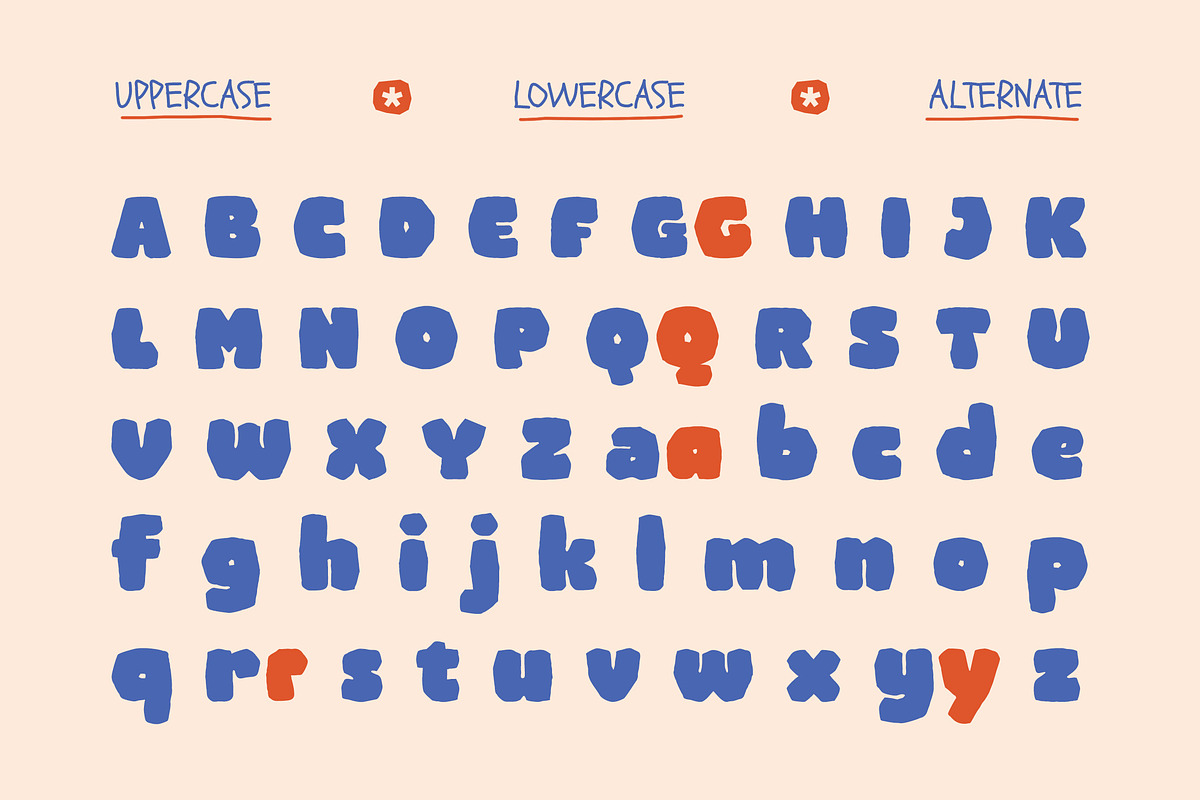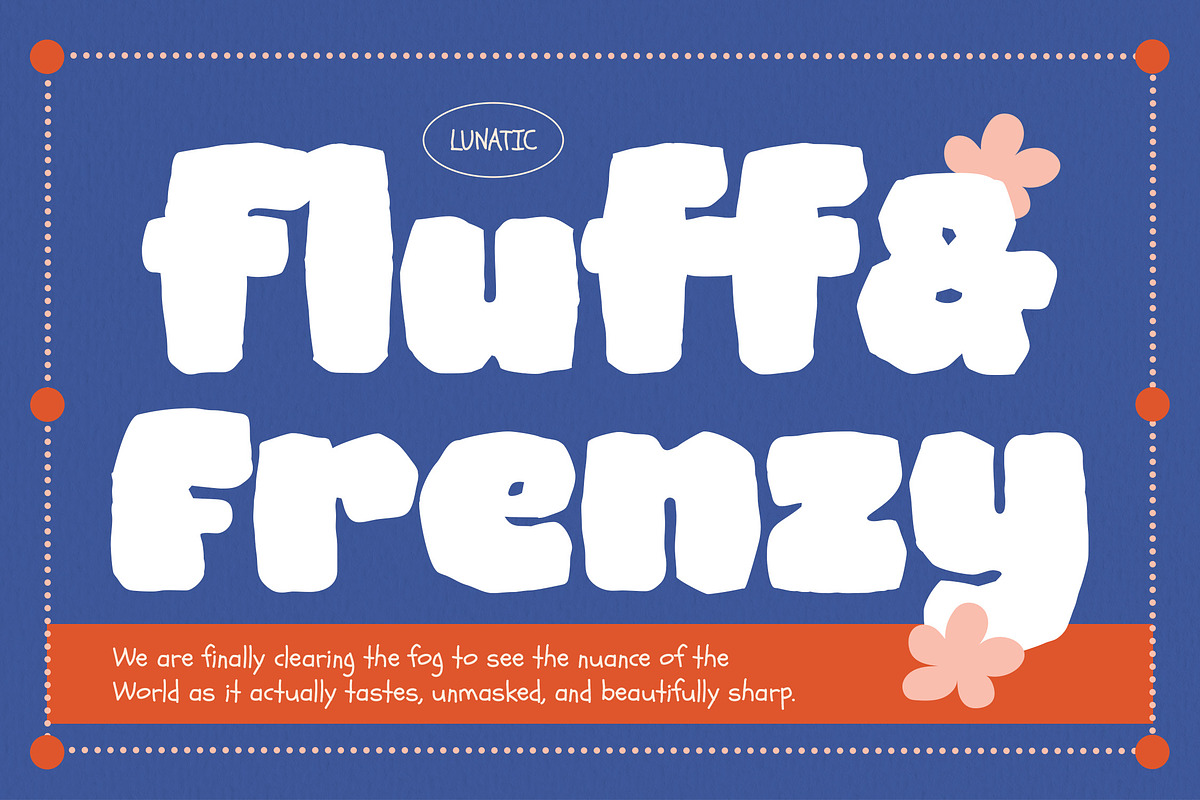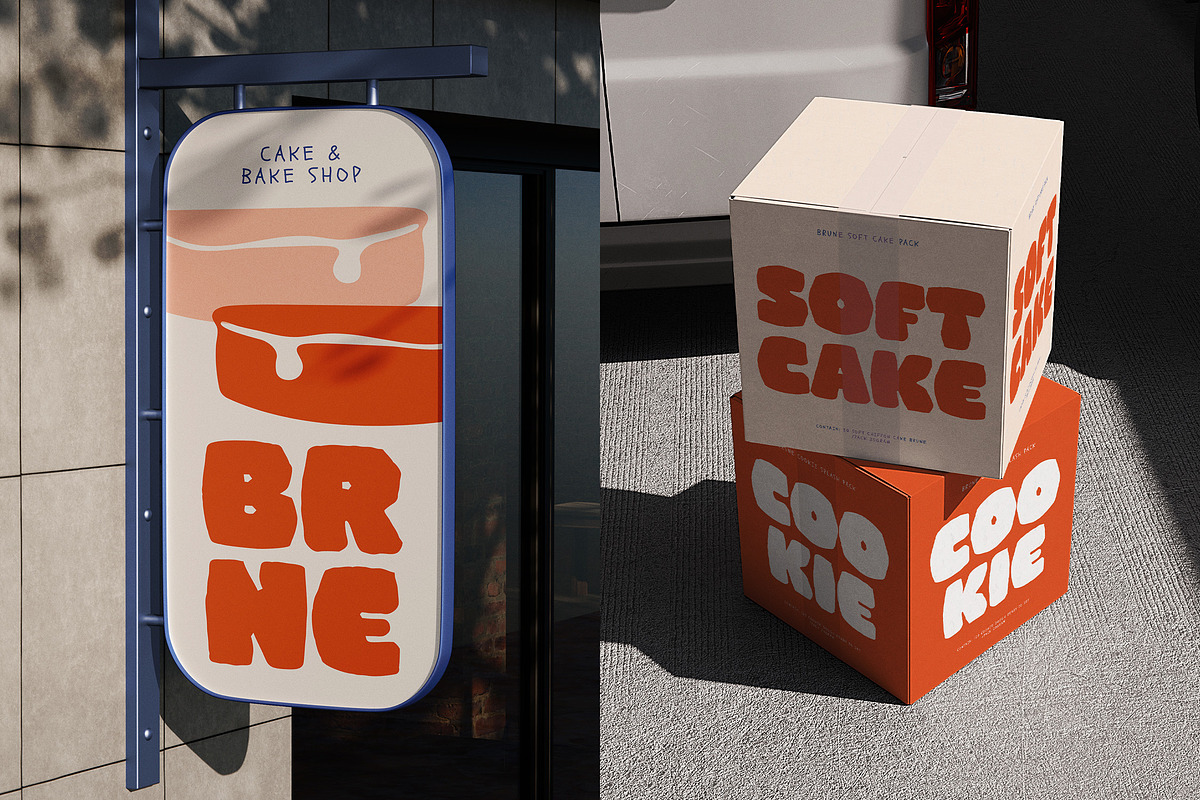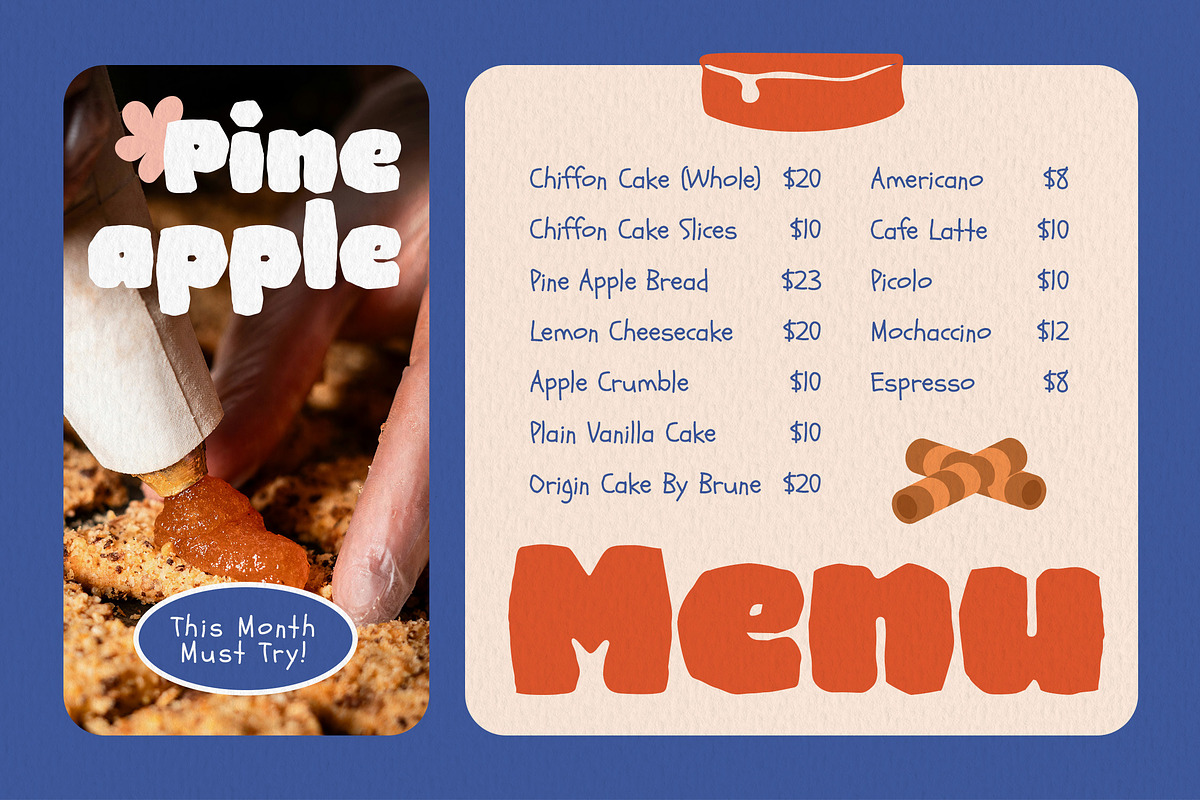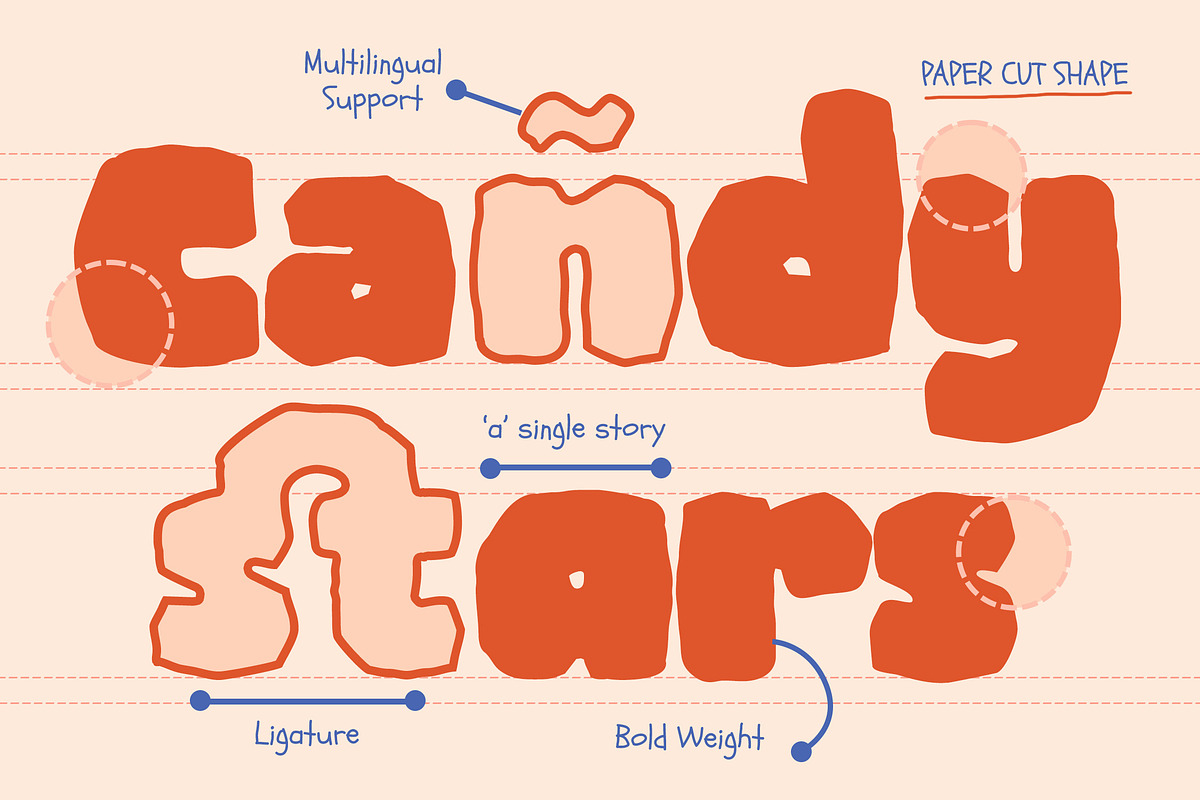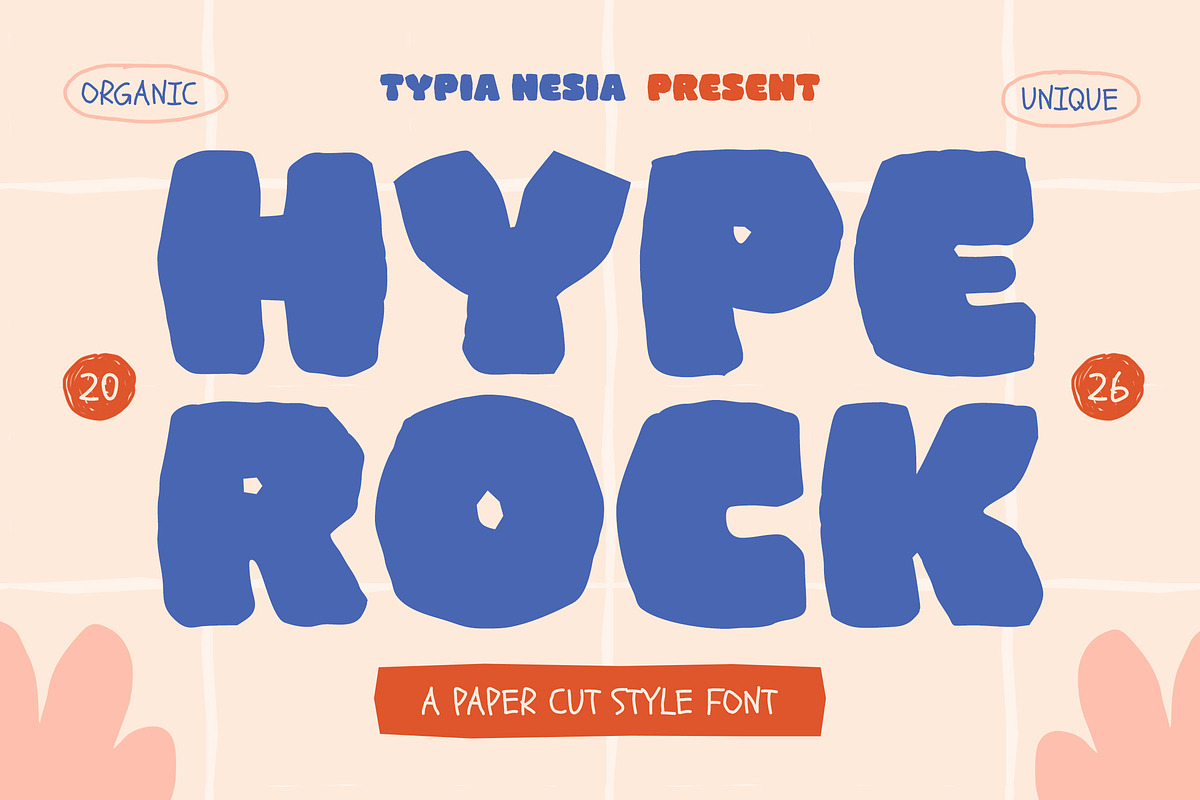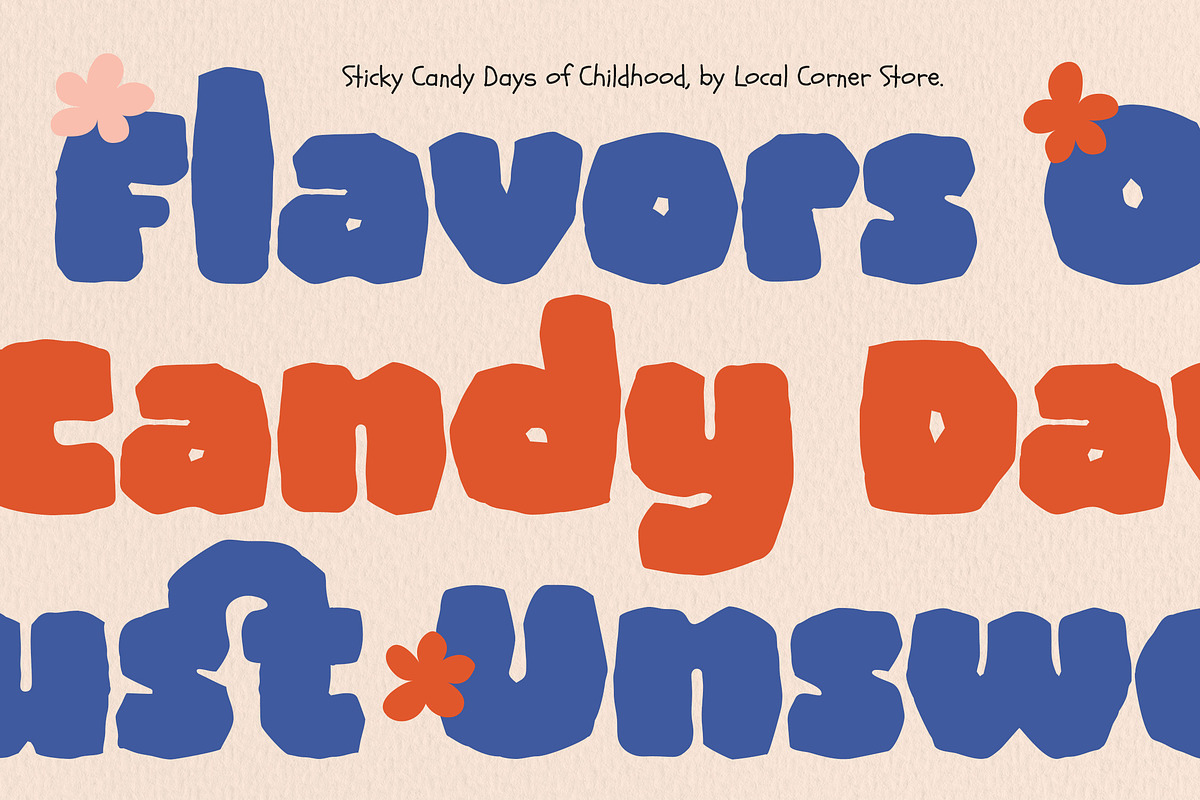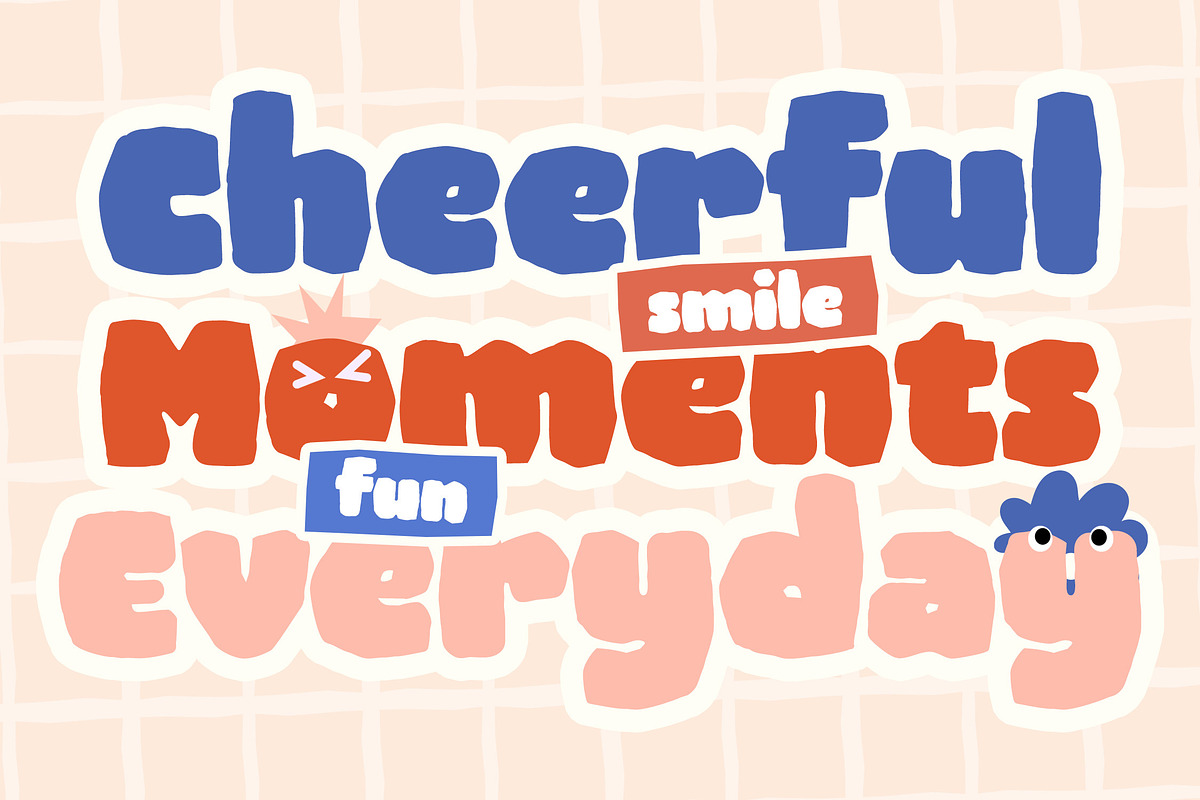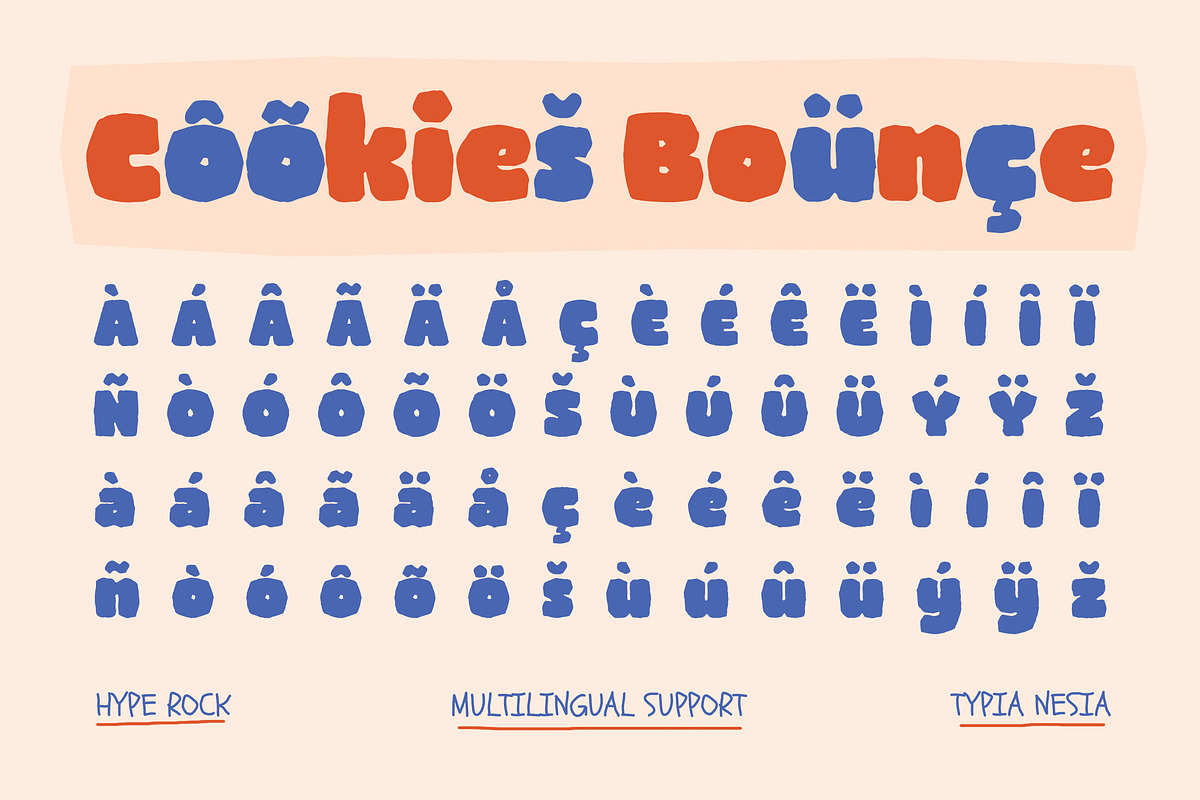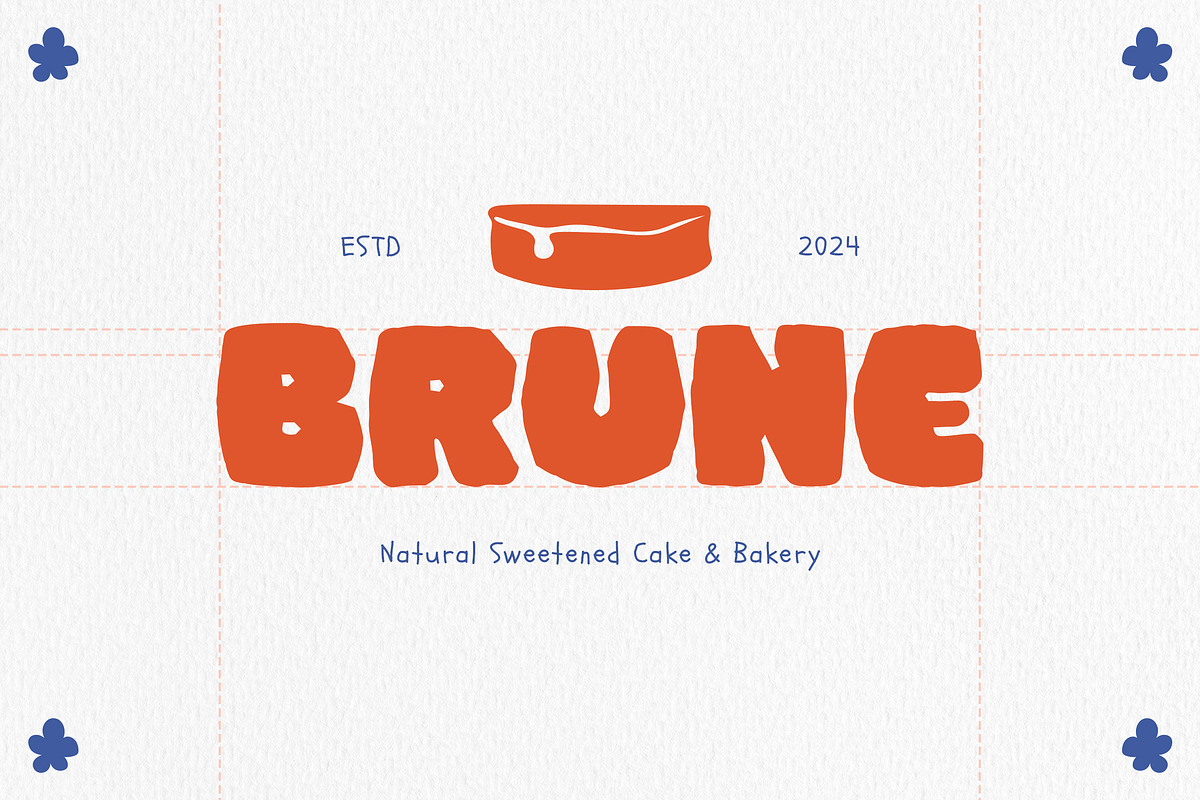
Hype Rock – Bold Paper Cutout Fun
Hype Rock – Bold Paper Cutout Fun Font - Modern Playful Cartoon Display Font
Hype Rock is a bold and playful paper cutout display font designed to bring a fun, energetic, and handcrafted feel to any creative project, such as kids branding, game titles, arcade graphics, toy packaging, café and coffee shop logos, bakery branding, book covers, retro posters, and creative merchandise. Inspired by papercut craft aesthetics and chunky cartoon lettering, this font delivers a strong visual impact while maintaining a friendly and approachable personality.